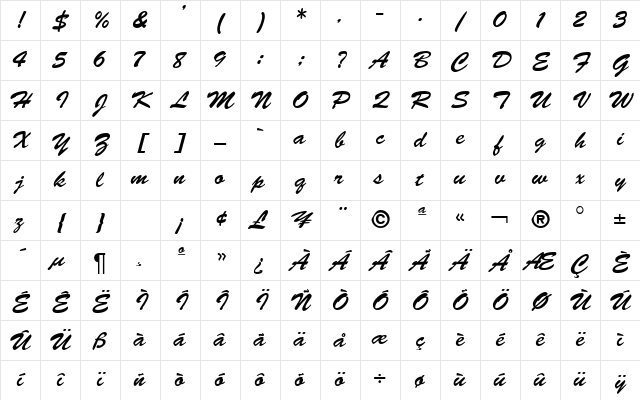
BarcBrushDB Bold Free Font
BarcBrushDB Bold
Design Context for BarcBrushDB
BarcBrushDB flows with the natural rhythm of handwritten lettering, making it ideal for designs that call for warmth and personal expression. Its bold stroke weight gives it real presence on the page.
Font Pairing: Combine BarcBrushDB with a simple geometric sans for maximum contrast - the tension between flowing curves and clean structure is a classic typographic pairing.
Pro Tip: Use BarcBrushDB for short runs of text - names, titles, or taglines. Extended body copy in script faces tires the eye quickly.